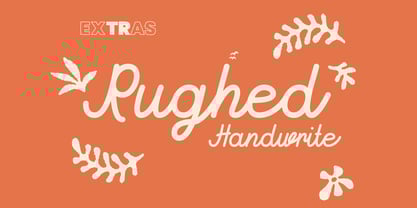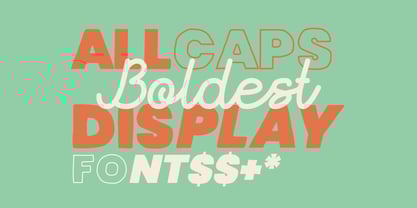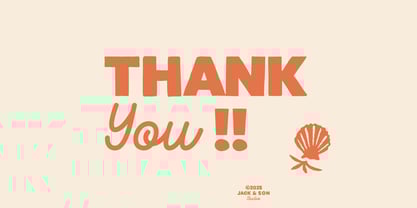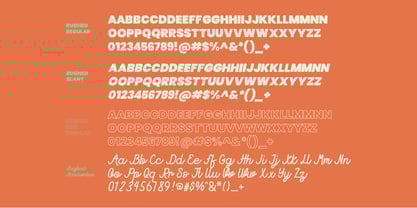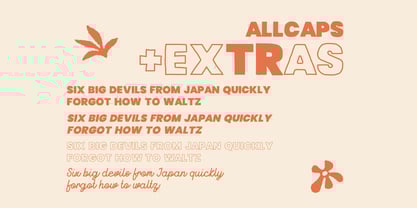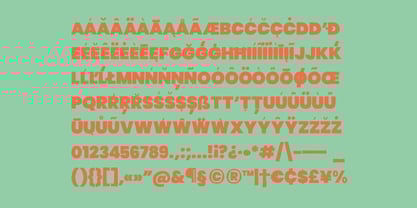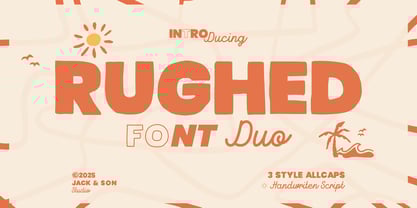
Rughed
by Jack & Son Type
The Rughed Font Family was designed by Jack Darisman and published by Jack & Son Type. Rughed contains 4 styles and family package options.
RUGHED - A Display Typeface with Vintage Soul
Meet RUGHED, a display typeface meticulously crafted to bring that authentic vintage feel you've been searching for. Each character boasts a hand-drawn charm, giving your designs a unique, artisanal touch.
This typeface is incredibly versatile, making it perfect for:
· Vintage branding
· Logo design
· T-shirt graphics
· Labels and badges
· And so much more!